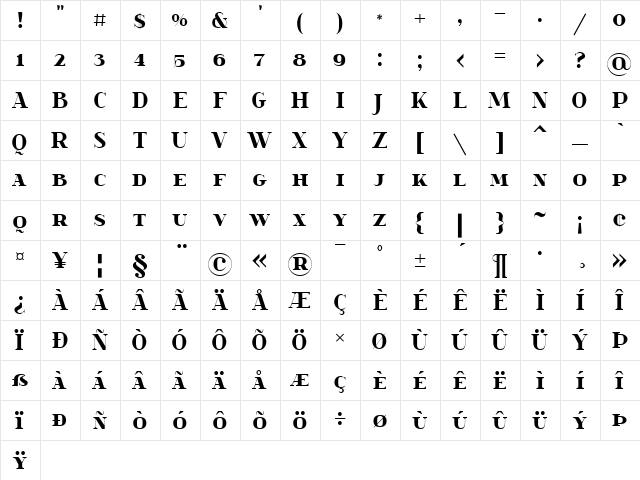
spinweradC Bold Font Preview
spinweradC Bold
Design Context for spinweradC Typeface
spinweradC offers clean, dependable letterforms without strong stylistic allegiance, making it a practical choice for designers who need flexibility. Its bold stroke weight gives it real presence on the page.